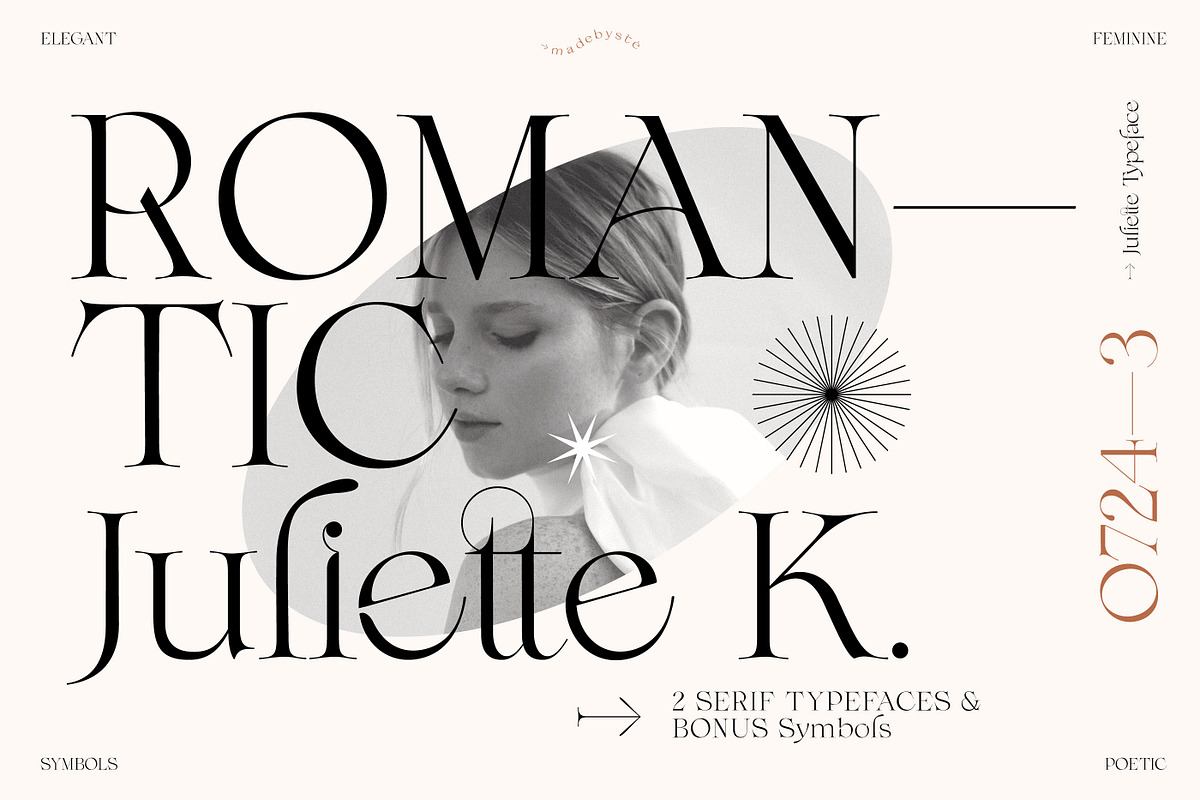
Please note, you must purchase this font for commercial use. However, you can easily download JULIETTE — 2 FONTS + 1 SYMBOL FONT Free Download for personal use and testing purposes. JULIETTE — 2 FONTS + 1 SYMBOL FONT is a versatile font bundle that includes two elegant typefaces and a unique symbol font, making it perfect for various design projects. Whether you're working on luxurious branding, wedding invitations, logos, or creative artwork, this bundle offers both stylish serif and script fonts, along with a collection of decorative symbols. JULIETTE — 2 FONTS + 1 SYMBOL FONT Free Download allows you to experiment with both text and symbol combinations for a cohesive and artistic design. Elevate your projects with a combination of elegant typefaces and beautiful symbols, all from this exceptional bundle. Download JULIETTE — 2 FONTS + 1 SYMBOL FONT Free Download today and explore its potential before deciding on a commercial license.